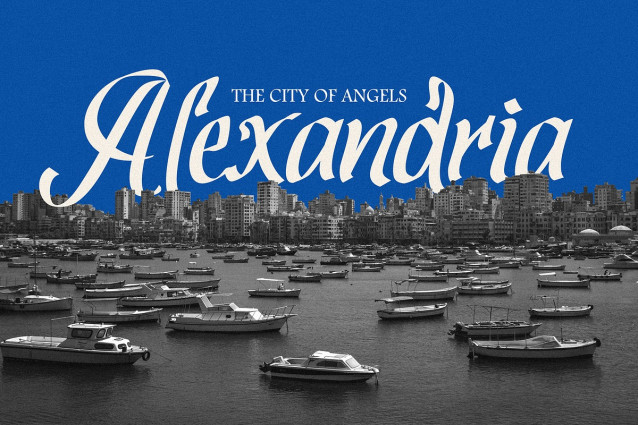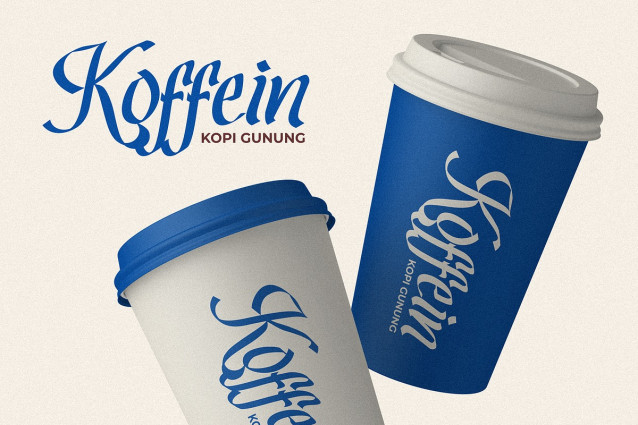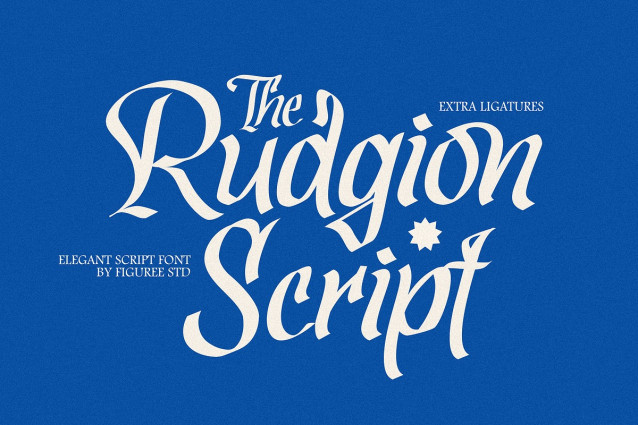
Rudgion Script Font
Rudgion Script Font is a classy bold script font with an elegant yet powerful touch to your designs. With its sophisticated curves and striking presence, this font is perfect for making a bold statement while maintaining a sense of refinement.
Elegant and Powerful: Rudgion combines the sophistication of a script font with the boldness of strong lines, making it ideal for designs that need to stand out with class. Its smooth, flowing characters create a beautiful balance between elegance and impact.
Versatile Style: This font is perfect for various applications, from luxury branding and high-end product packaging to wedding invitations and stylish editorial designs. Rudgion’s versatility ensures it enhances any project with a touch of elegance.
Sophisticated Curves: Each character in Rudgion is meticulously crafted with graceful curves and refined details. The font’s exquisite design ensures your text exudes sophistication and charm, captivating your audience with its polished appearance.
Bold Presence: Despite its elegant design, Rudgion doesn’t hesitate to make a bold impression. Its thick strokes and strong lines ensure your message is delivered with confidence and authority, making it perfect for headlines and logos.
Timeless Appeal: Rudgion’s classy script style transcends trends, offering a timeless appeal that suits both modern and classic design projects. Its enduring elegance makes it a reliable choice for any designer looking to create lasting impressions.
Elevate your designs with the distinguished and impactful style of Rudgion. This classy bold script font delivers elegance and strength, making it a best-selling choice for designers seeking to create sophisticated and memorable visuals.